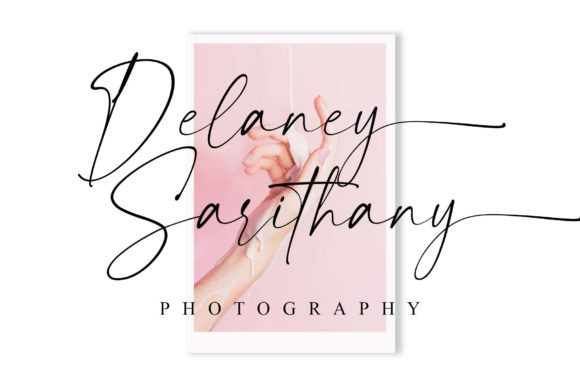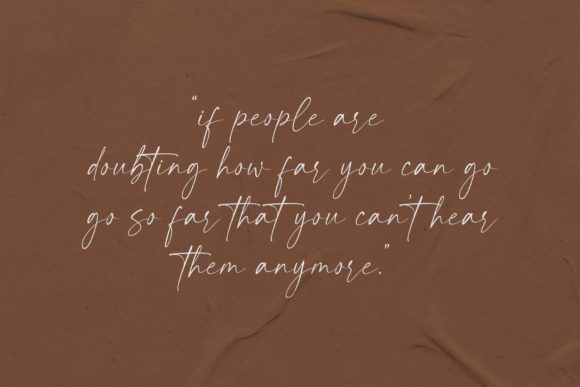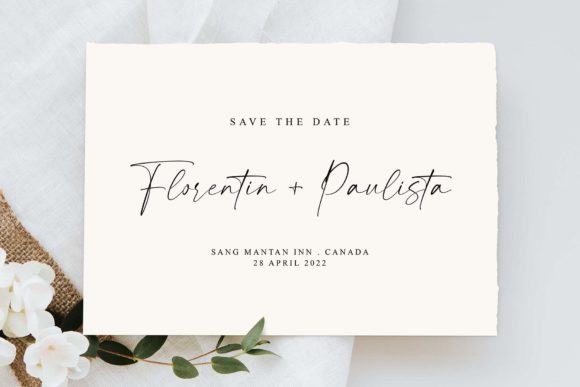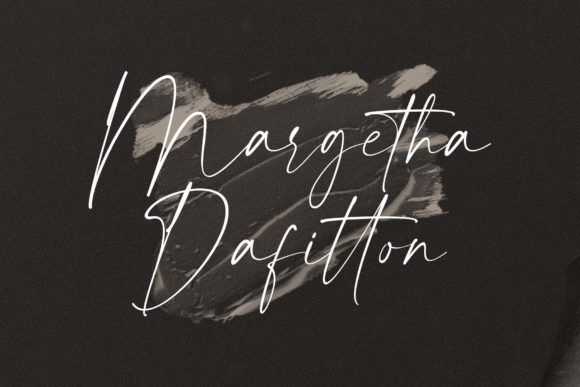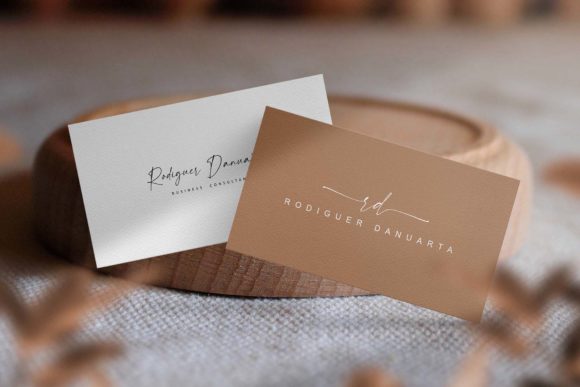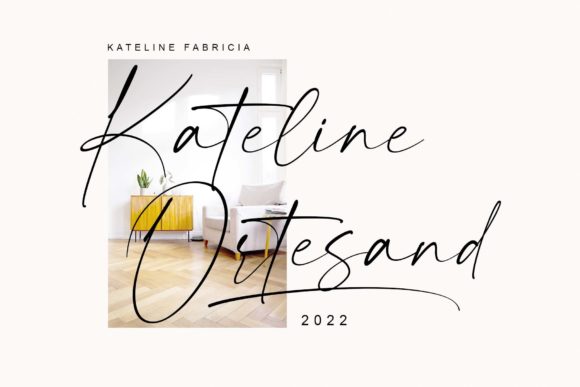
A Touch of Whimsy in Your Design
Have you ever found yourself scribbling away in a notebook, letting your pen dance across the page as you bring a character to life? It’s in those moments of creative freedom that we stumble upon the perfect font to match our vision. For designers seeking to add a touch of elegance to their work, the search is over. Introducing the exquisite Garnetha Hamitton Font, a masterfully crafted handwritten font that seamlessly blends classy calligraphic influences with a modern, fresh feel.
With its PUA encoding, accessing all the glyphs and swashes is a breeze, allowing designers to unleash their full creative potential. The Garnetha Hamitton Font is a valuable addition to any design arsenal, providing the perfect balance of sophistication and whimsy to elevate any project. Whether you’re working on a wedding invitation, a branding campaign, or a personal art piece, this font is sure to become a trusted favorite.
- Unique Characteristics: Elegant, sophisticated script font with a mix of cursive and calligraphic elements, ideal for creative and professional applications
Garnetha Hamitton Font Review
As a designer, I was excited to try out the Garnetha Hamitton Font. Overall, I found it to be a solid choice for certain types of projects, but it has its limitations.
- Unique and elegant design: Garnetha Hamitton Font has a distinctive, hand-drawn feel that can add a touch of sophistication to any design.
- Good legibility: The font is clear and easy to read, even at smaller sizes.
- Wide range of weights: The font comes in multiple weights, from light to bold, making it versatile for various design needs.
- Limited language support: Garnetha Hamitton Font may not support all languages, which can be a limitation for international projects.
- Not ideal for body text: While the font is great for headings and titles, it may not be the best choice for large blocks of body text due to its unique design.
- Some characters may not display correctly: I encountered some issues with characters not displaying properly in certain software or environments.
Overall, I would recommend Garnetha Hamitton Font for specific design projects where its unique style and elegance can shine. However, it may not be the best choice for every project, and designers should be aware of its limitations before using it.
For the best results, use Garnetha Hamitton Font for headings and titles, and a simpler font for body text.
Use Garnetha Hamitton Font for headings, titles, and other design elements that require a bold and elegant look.
Garnetha Hamitton Font is suitable for:
- Book covers and literary designs.
- Special event invitations and announcements.
Remember to use Garnetha Hamitton Font in moderation
Playfair Display is a luxurious, high-end serif font ideal for use in titles, headings, and body text where elegance and sophistication are required. It is often used in high-end branding, luxury goods, and premium publications.
Compared to Garnetha Hamitton Font, Playfair Display is more ornate and formal, making it suitable for high-end applications. While Garnetha Hamitton Font has a vintage feel, Playfair Display has a more classical and sophisticated appearance.
Great Vibes is a modern script font with a casual, friendly feel, making it perfect for use in social media, advertising, and digital content. It is also suitable for use in titles, headings, and body text where a relaxed, approachable tone is desired.
Compared to Garnetha Hamitton Font, Great Vibes is more casual and informal, lacking the vintage feel of Garnetha Hamitton Font. Great Vibes is better suited for digital applications and modern branding.
Carolyna Pro is a modern sans-serif font with a clean, minimalist design, making it ideal for use in digital content, advertising, and branding. It is also suitable for use in titles, headings, and body text where a clean and modern aesthetic is desired.